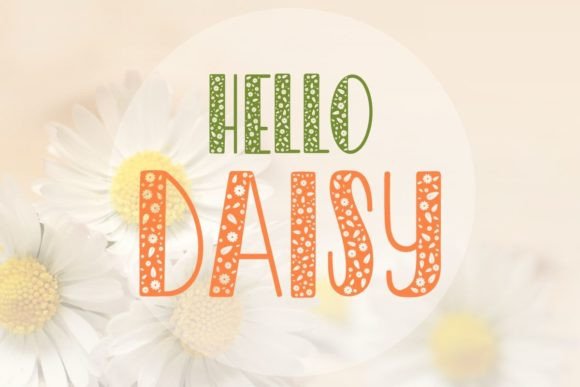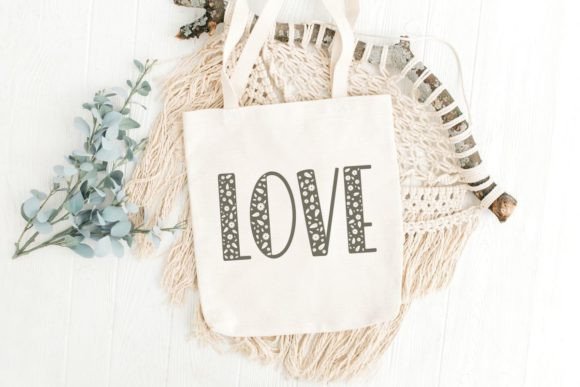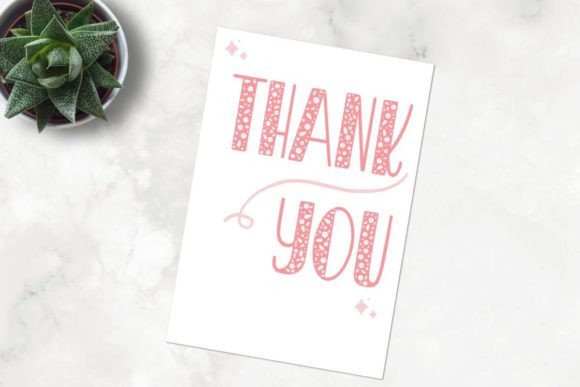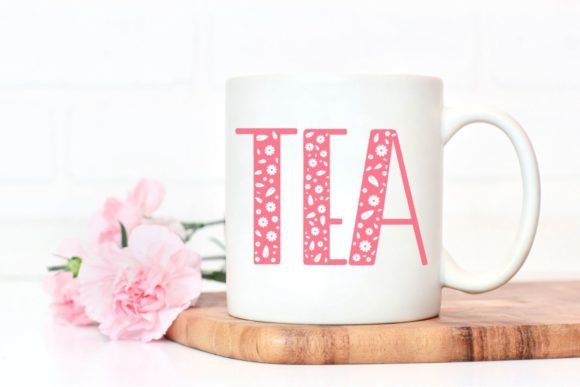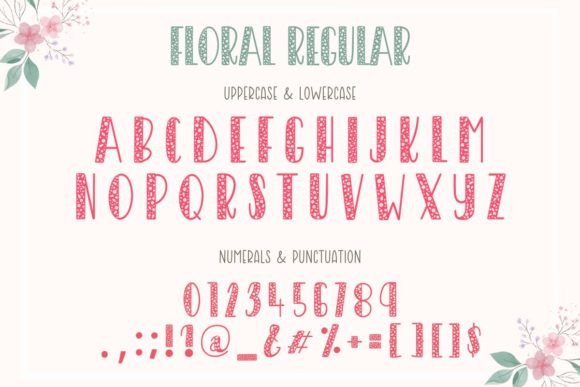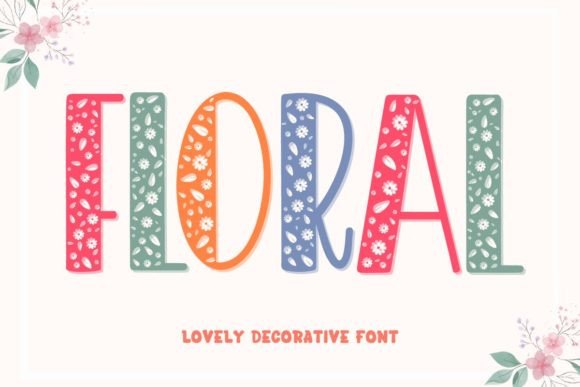
Introducing Floral Font: The Perfect Decorative Font for Your Design Needs
Are you a designer or crafter looking for a font that can add a touch of elegance and charm to your designs? Look no further than Floral Font! This lovely decorative font is perfect for a wide range of design ideas, from floral-themed projects to everyday creations. In this article, we’ll explore the features and benefits of Floral Font, and show you how it can help you take your designs to the next level.
What is Floral Font?
Floral Font is a beautiful, hand-crafted font that features a casual, charming style. Its unique and intricate design makes it perfect for creating eye-catching and visually appealing designs. The font is highly versatile and can be used for a wide range of projects, from digital designs to print materials.
Features of Floral Font
- Casual Charm: Floral Font has a relaxed, casual vibe that makes it perfect for creating designs that are friendly and approachable.
- Decorative Style: The font features intricate and beautiful designs that add a touch of elegance to any project.
- Highly Versatile: Floral Font can be used for a wide range of design projects, from digital designs to print materials.
- Easy to Read: Despite its decorative style, Floral Font is easy to read and understand, making it perfect for body text and headlines.
Design Ideas with Floral Font
Floral Font is perfect for a wide range of design ideas, including:
- Floral-themed designs: Use Floral Font to create beautiful floral-themed designs, such as flower arrangements, garden-inspired projects, and more.
- Banners and Signs: Create eye-catching banners and signs with Floral Font, perfect for advertising, promotions, and events.
- Social Media Posts: Use Floral Font to create visually appealing social media posts that will grab the attention of your followers.
- Stationery and Cards: Create beautiful stationery and cards with Floral Font, perfect for special occasions and everyday correspondence.
- Mugs and Shirts: Use Floral Font to create custom mugs and shirts that make perfect gifts or promotional items.
Benefits of Using Floral Font
There are many benefits to using Floral Font in your designs, including:
- Unique and Eye-catching Designs: Floral Font helps you create unique and eye-catching designs that will stand out from the crowd.
- High-quality Design: Floral Font is a high-quality font that is designed to produce crisp and clear text, even at small sizes.
Tips and Tricks for Using Floral Font
Here are some tips and tricks for getting the most out of Floral Font:
- Experiment with Different Sizes: Try using Floral Font in different sizes to create visual interest and hierarchy in your designs.
- Combine with Other Fonts: Combine Floral Font with other fonts to create a unique and visually appealing design.
- Use for Headlines and Titles: Use Floral Font for headlines and titles to add a touch of elegance and sophistication to your designs.
- Customize and Edit: Customize and edit Floral Font to fit your design needs, such as changing the color or adding effects.
| Author | AnningArts |
In conclusion, Floral Font is a beautiful and versatile decorative font that is perfect for a wide range of design needs. Its casual charm and intricate design make it perfect for creating eye-catching and visually appealing designs. Whether you’re a designer or crafter, Floral Font is a great addition to your design toolkit. So why not give it a try and see what amazing designs you can create?